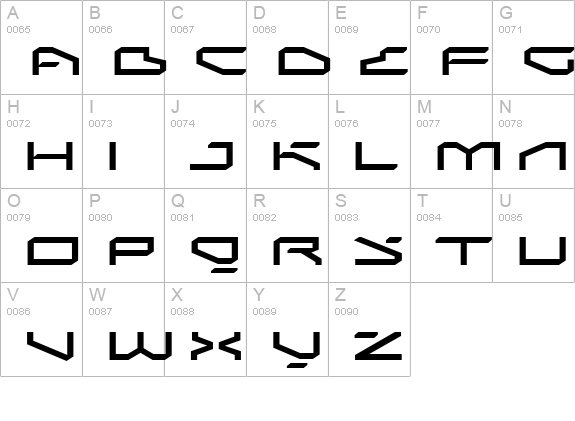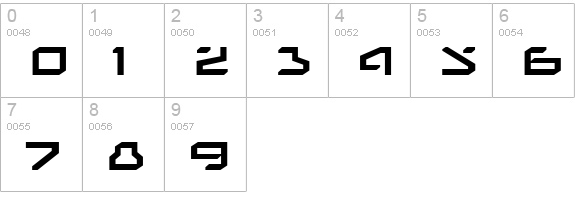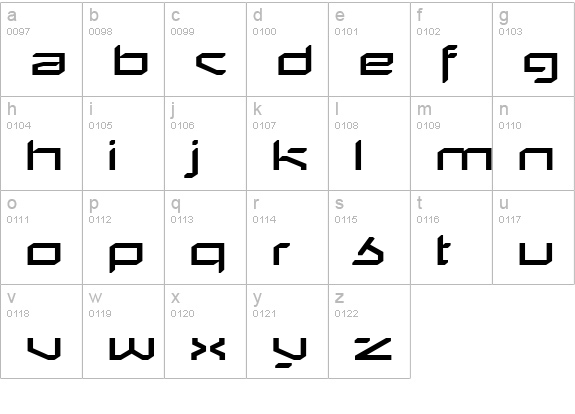
Betaphid Font Details
Introducing Betaphid font, a versatile and modern typeface that is sure to make a statement in your design projects. With its sleek lines and contemporary feel, Betaphid is perfect for a wide range of applications, from branding to editorial design. This unique font is available for free download at FontsMarket.com, making it accessible to designers of all levels. Whether you're working on a logo, poster, or website, Betaphid's clean and stylish aesthetic will help your designs stand out. Explore the endless creative possibilities that Betaphid font has to offer and elevate your projects with its fresh and eye-catching appeal. Download now and add this must-have font to your collection today!